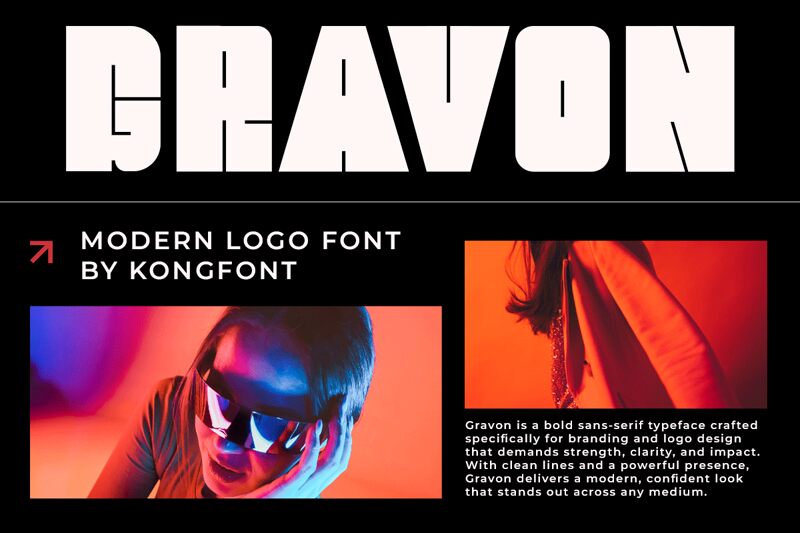
Gravon font by Kong Font is a groovy free font with a daring aura and a modern assertive style. The letters of this typeface are contemporary with a strong powerful character. They command attention and can deliver in style any message you want to convey.
Create impressive flyers, alerts, or online content with the help of Gravon. The font can be used in CD covers, packaging, apparel labels, and more. Try it on logos and branding, web and print advertising, editorial designs, and video titles or texts.